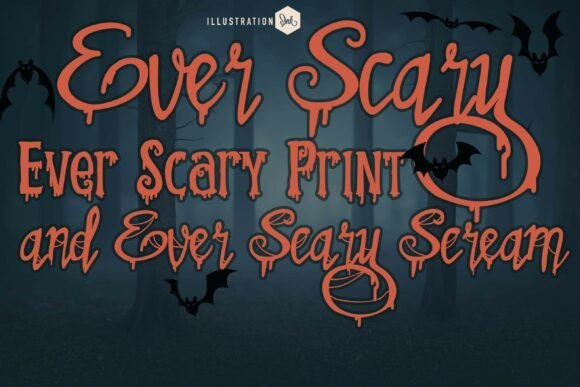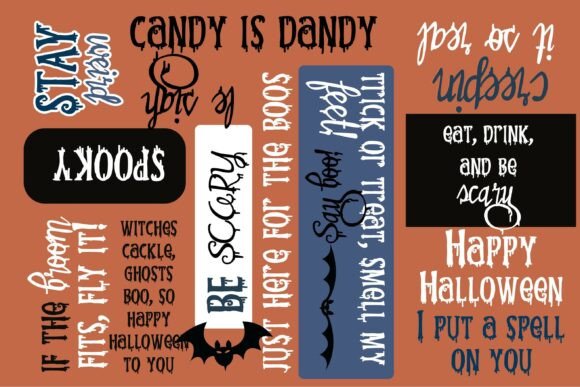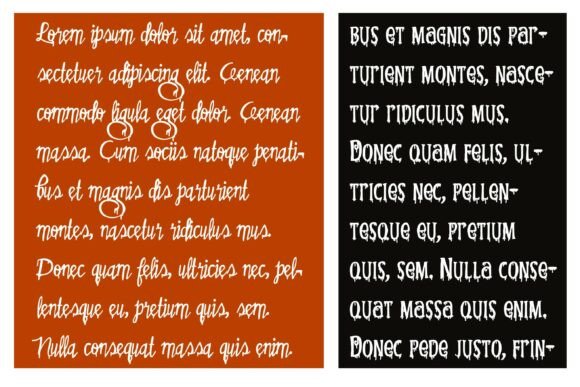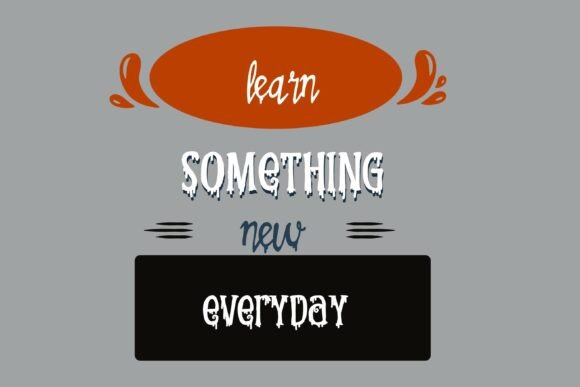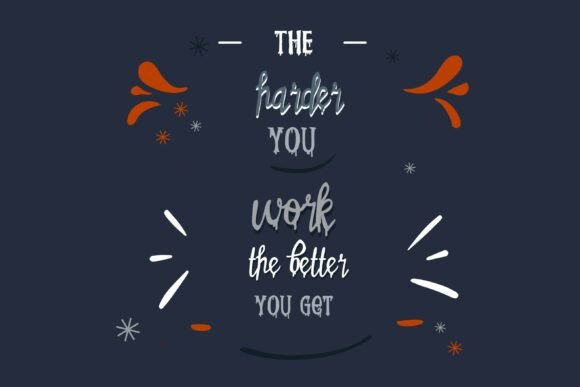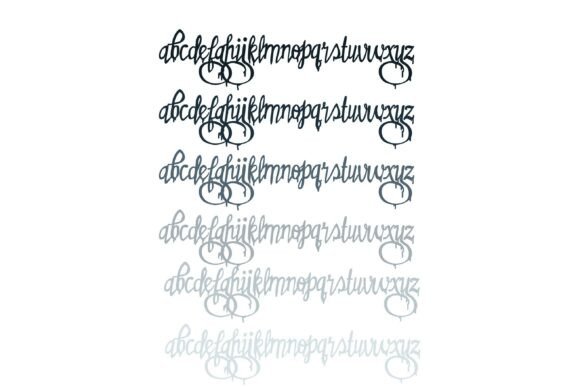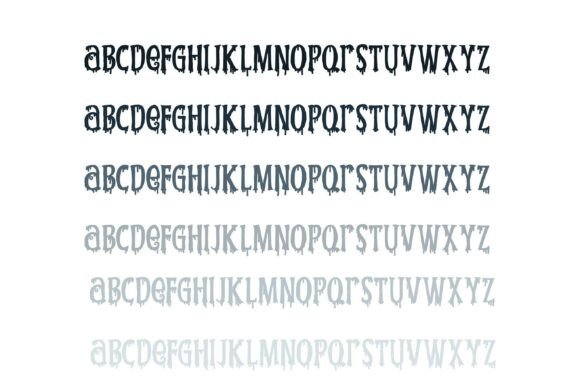
Unleashing Your Inner Scream Queen: Ever Scary Trio Font
As the clock strikes midnight on a dark and stormy Halloween night, the creative juices start flowing. You’ve got a design project in mind, and you’re on the hunt for the perfect font to send chills down your audience’s spines. That’s where the Ever Scary Trio Font comes in – a hauntingly stylish set of three fonts that will take your designs from bland to blood-curdling.
This spine-tingling trio includes Ever Scary, Ever Scary Print, and Ever Scary Scream – three variations that blend script and print with spooky, dripping effects. Whether you’re creating horror posters, eerie invitations, or haunted branding, the Ever Scary Trio Font is a must-have for any designer looking to add a touch of gothic elegance to their work. With its versatility and haunting charm, this font trio is sure to be a valuable addition to your design arsenal.
Ever Scary Trio Font Key Features
- Font Family: Ever Scary Trio is a unique, hand-drawn font family designed to evoke a sense of eeriness and mystery.
- Unique Characteristics: The Ever Scary Trio font features a distressed, hand-drawn aesthetic with subtle texture and imperfections, adding to its eerie and mysterious feel.
Ever Scary Trio Font Review
I recently had the chance to work with the Ever Scary Trio Font, and I must say it’s an interesting combination of styles. The font is a collection of three fonts in one, each with its own unique character.
- Unique Combination of Styles: The Ever Scary Trio Font is a great choice for designers looking for something different. The three fonts in one offer a lot of versatility and can be used to create unique and eye-catching designs.
- High-Quality Typography: Each font in the collection is well-designed and features high-quality typography. The fonts are clear, crisp, and easy to read.
- Good for Horror and Halloween-themed Designs: As the name suggests, the Ever Scary Trio Font is perfect for horror and Halloween-themed designs. The fonts are creepy and spooky, making them a great choice for designers looking to create a spooky atmosphere.
- Limited Usefulness for Non-Horror Designs: While the Ever Scary Trio Font is great for horror and Halloween-themed designs, it may not be the best choice for other types of designs. The fonts may come across as too spooky or creepy for other themes.
- No Customization Options: The font does not offer any customization options, which may be a limitation for some designers. If you want to create a custom font or modify the existing ones, you may be out of luck.
The Ever Scary Trio Font is a great choice for designers looking for something unique and spooky. While it may have some limitations, it’s a great addition to any designer’s toolkit. If you’re looking for a font to create a spooky atmosphere, this is definitely worth checking out.
The Ever Scary Trio Font is perfect for creating spooky and eerie designs. Use it for:
- Halloween-themed designs
- Horror movie posters
- Spooky invitations
- Creepy typography
For the best results, use the Ever Scary Trio Font in bold and italics to create a spooky atmosphere.